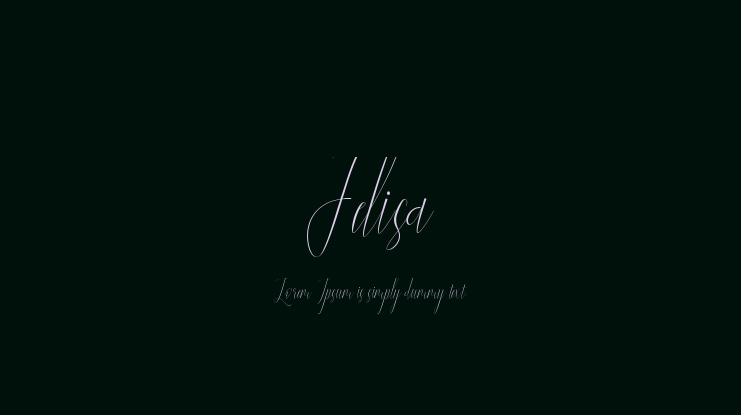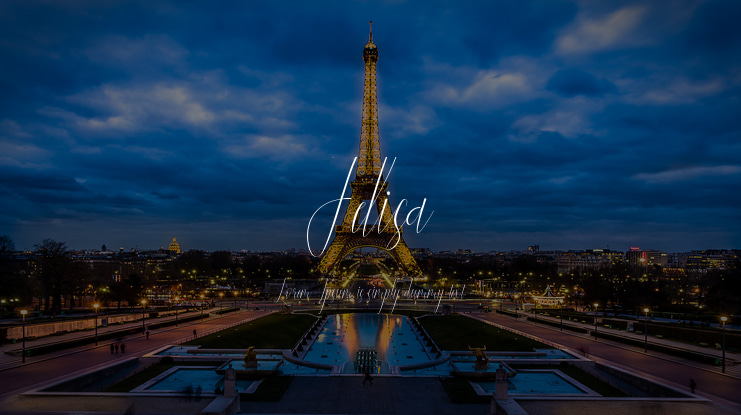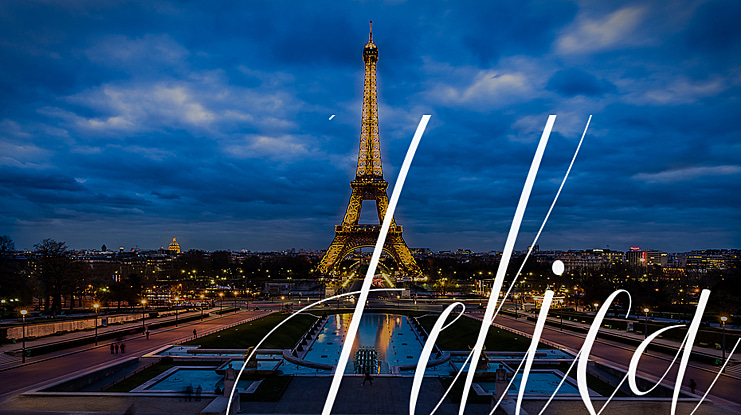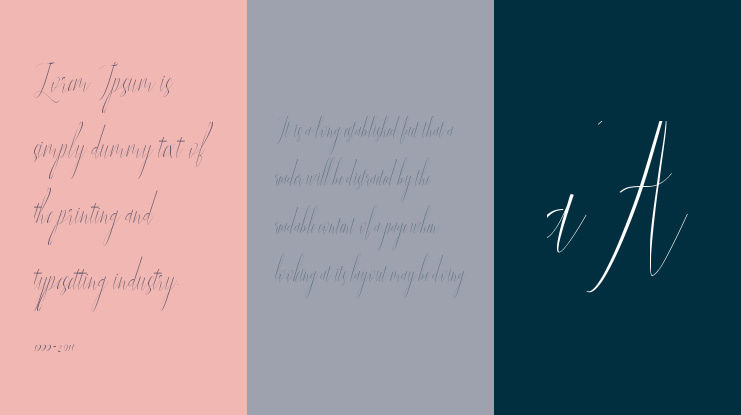
Jelisa Font
Jelisa Script Font A new handwritten font. Introducing Jelisa Font. It is designed by halimstudio. It comes in a classic form with a modern twist. This font is suitable for projects such as vintage logos, fashion labels, special card headers, badges, food packaging designs, especially wine labels.